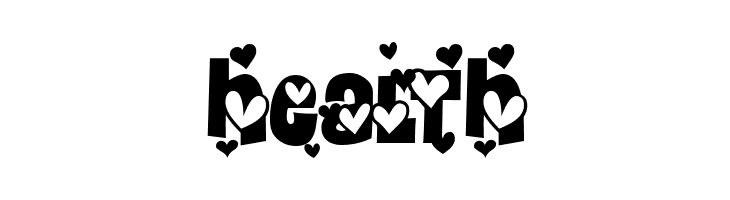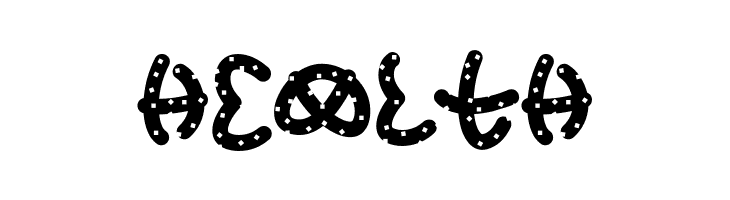
A bold, decorative font with heart motifs integrated into each character.
A bold, decorative font with heart motifs, perfect for romantic and playful designs.
A decorative font inspired by maritime flags with bold geometric shapes.
A geometric, maritime-inspired design with bold, clear shapes.
A nautical-themed symbol set inspired by maritime flags, featuring bold geometric designs.
A bold, geometric set of symbols inspired by maritime signal flags.
A bold, playful font with a soccer ball pattern, ideal for sports themes.
A collection of intricate, mystical symbols with esoteric and celestial motifs.
A playful, hand-drawn font with bold, rounded characters resembling pretzels.
A playful, pretzel-themed font with a bold, textured appearance.